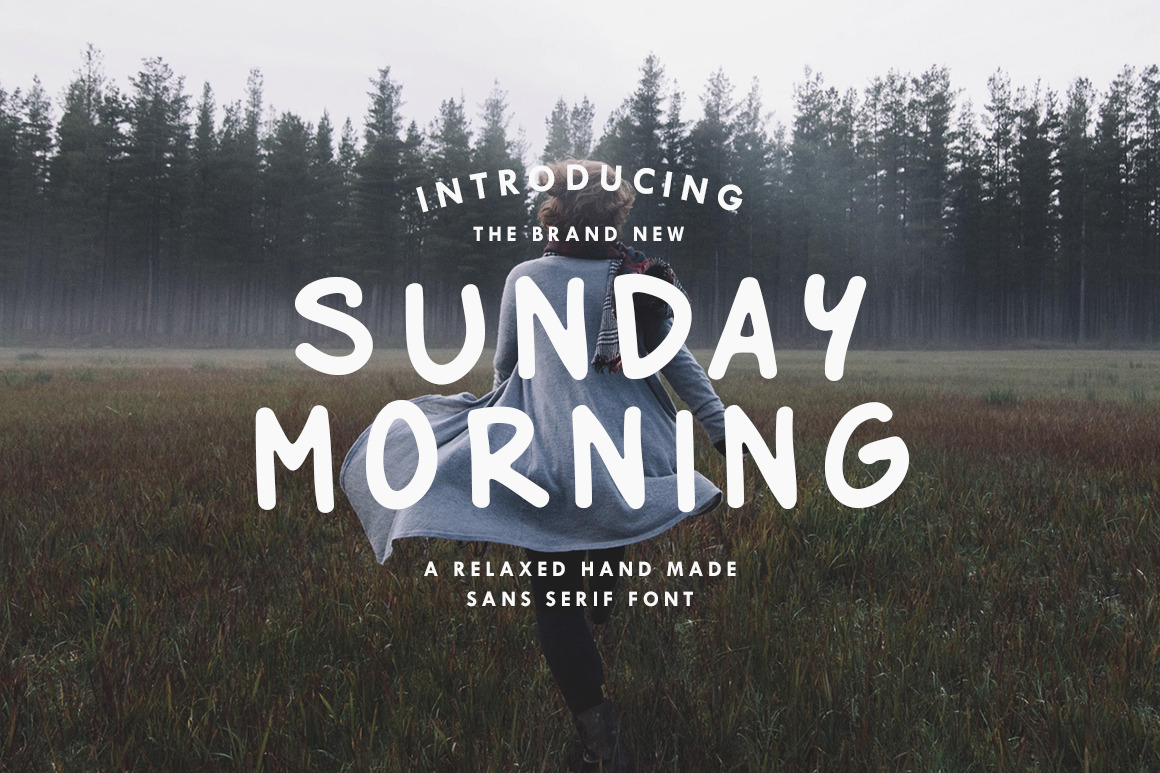
Sunday Morning - Sans Serif Font
Sunday Morning is a relaxed hand drawn custom sans serif font, perfect for those fun projects! It is an extension of my general handwriting and I've left natural variations in the font to give it that natural feel.
It's perfect for personal projects, invitations, letters, posters, inspirational quotes and so much more.
What's Included? Sunday Morning comes with uppercase characters, punctuation glyphs and numerals.